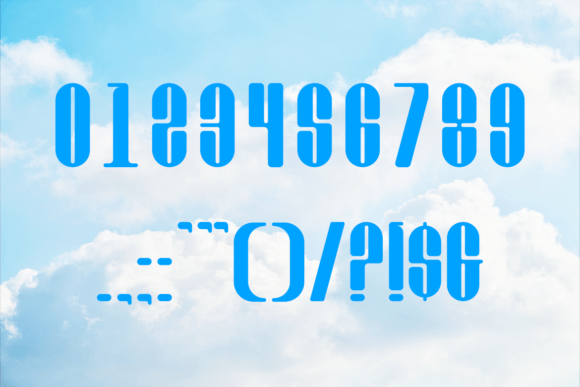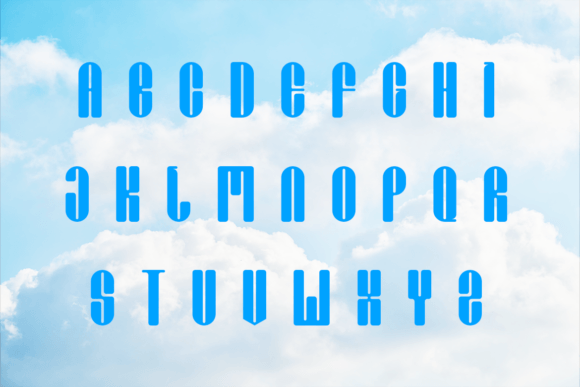
Dustie Font: The Bold and Robust Choice for Your Next Project
Are you looking for a font that can add a bold and attention-grabbing touch to your next project? Look no further than Dustie Font. Designed to make a statement, Dustie is a robust font that is perfect for a wide range of applications, from sports design to movie posters, and everything in between.
What is Dustie Font?
Dustie Font is a carefully crafted typeface that is designed to convey a sense of strength and confidence. Its bold and rugged appearance makes it perfect for projects that require a strong visual impact. Whether you’re working on a sports team jersey, a movie poster, or a book cover, Dustie Font is sure to grab attention and leave a lasting impression.
Key Features of Dustie Font
• Bold and Robust Design: Dustie Font features a bold and rugged design that is perfect for making a statement.
• Highly Versatile: Dustie Font is suitable for a wide range of projects, including sports design, team jerseys, movie posters, book covers, and more.
• Easy to Read: Despite its bold design, Dustie Font is easy to read, making it perfect for headlines, titles, and other applications where legibility is key.
• Unique Character: Dustie Font has a unique character that sets it apart from other fonts, making it perfect for designers and crafters looking to add a touch of personality to their projects.
Use Cases for Dustie Font
Dustie Font is a highly versatile font that can be used in a wide range of applications. Here are some examples of projects where Dustie Font would be a great choice:
• Sports Design: Dustie Font is perfect for sports team jerseys, logos, and other materials where a bold and rugged appearance is desired.
• Movie and Film Posters: Dustie Font is a great choice for movie and film posters, where a bold and attention-grabbing title is needed.
• Book Covers: Dustie Font can add a bold and eye-catching touch to book covers, making it perfect for authors and publishers looking to stand out.
• Game Design: Dustie Font can be used in game design to create bold and attention-grabbing titles, logos, and other materials.
• Documentaries and Film Titles: Dustie Font is a great choice for documentary and film titles, where a bold and rugged appearance is desired.
Why Choose Dustie Font?
There are many fonts available that can add a bold and attention-grabbing touch to your project. So why choose Dustie Font? Here are a few reasons:
• Unique Design: Dustie Font has a unique design that sets it apart from other fonts.
• Highly Versatile: Dustie Font can be used in a wide range of applications, making it a great choice for designers and crafters who need a font that can adapt to different projects.
• Easy to Read: Despite its bold design, Dustie Font is easy to read, making it perfect for headlines, titles, and other applications where legibility is key.
Dustie Font is a robust and bold font that is perfect for designers and crafters looking to add a touch of personality to their projects. With its highly versatile design, ease of readability, and unique character, Dustie Font is a great choice for a wide range of applications. Whether you’re working on a sports team jersey, a movie poster, or a book cover, Dustie Font is sure to grab attention and leave a lasting impression.